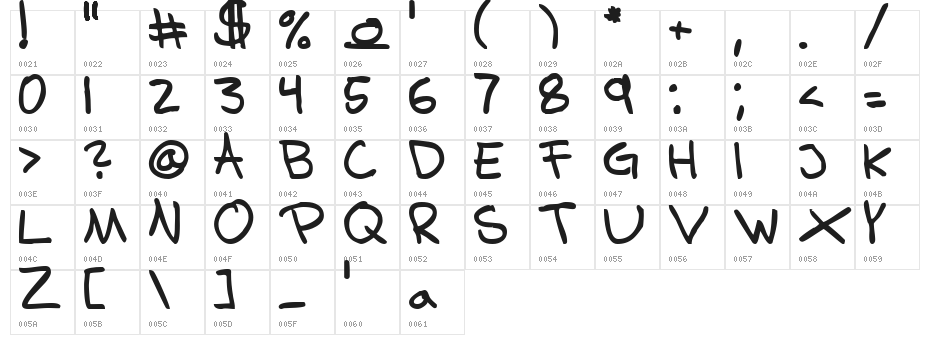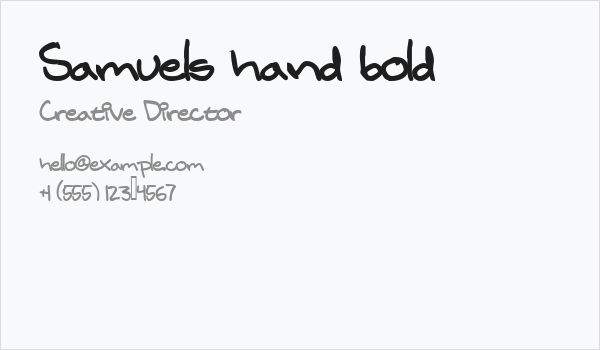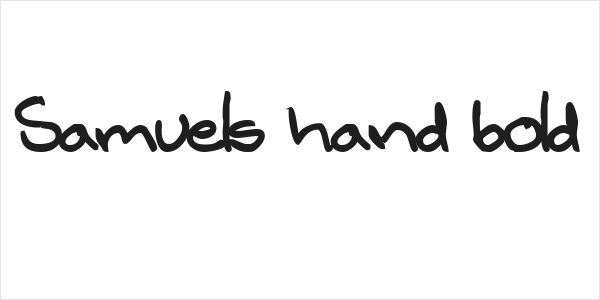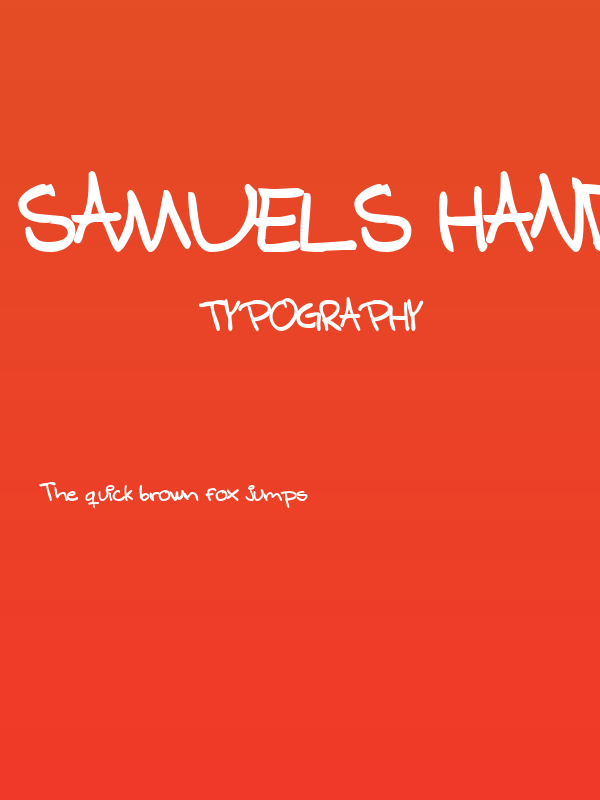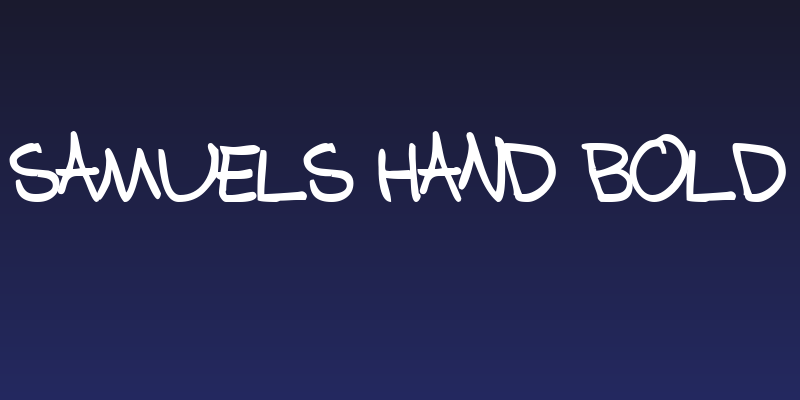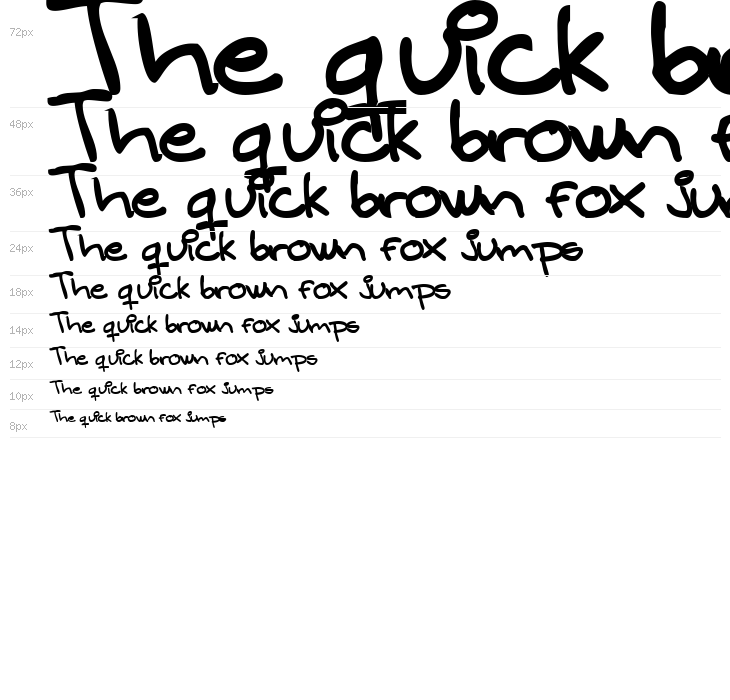
Samuels hand bold Font
Samuels hand bold Description
This font features a bold, handwritten style with a playful and casual appearance. The characters are rounded and slightly irregular, giving it a personal and informal touch. The uppercase and lowercase letters maintain a consistent flow, while the numbers and special characters complement the overall aesthetic. The strokes are thick and uniform, enhancing readability while retaining a whimsical charm. This font is ideal for projects that require a friendly and approachable feel, such as children's books, casual invitations, or creative branding.
| Proposed Projects | Children's books, casual invitations, creative branding, personal blogs, and informal posters. |